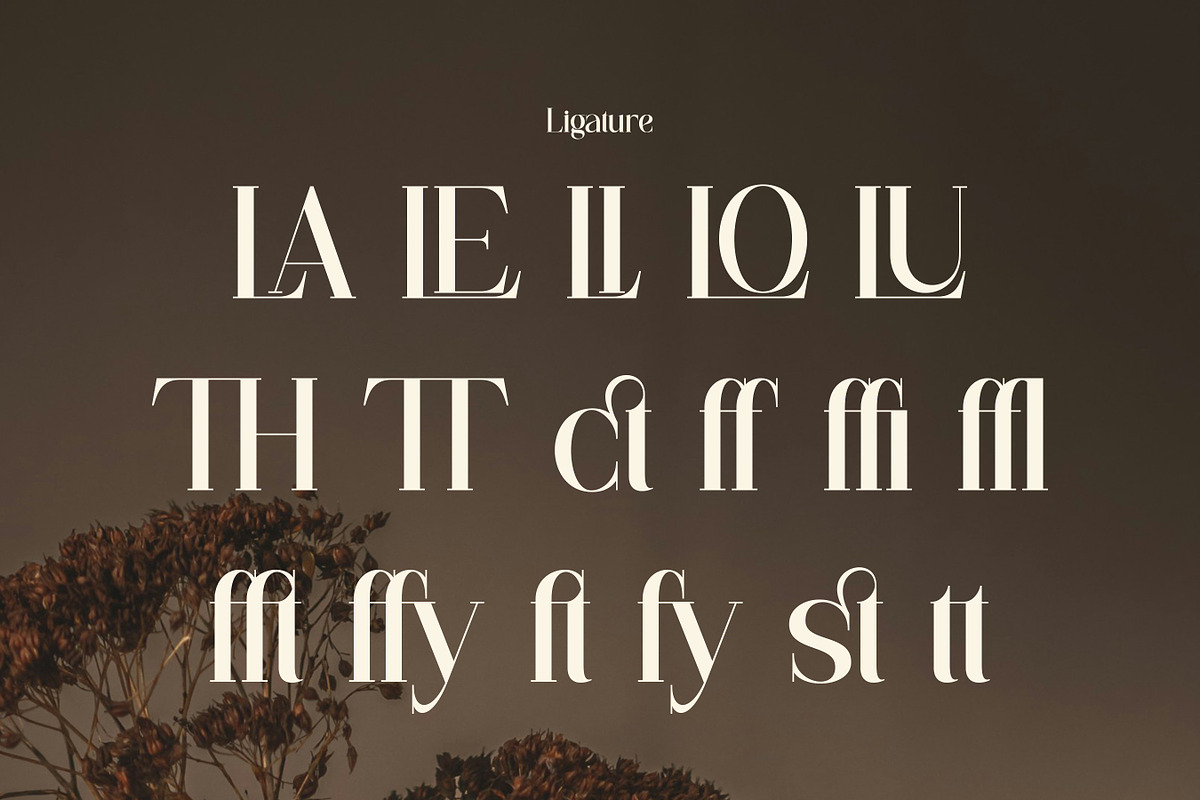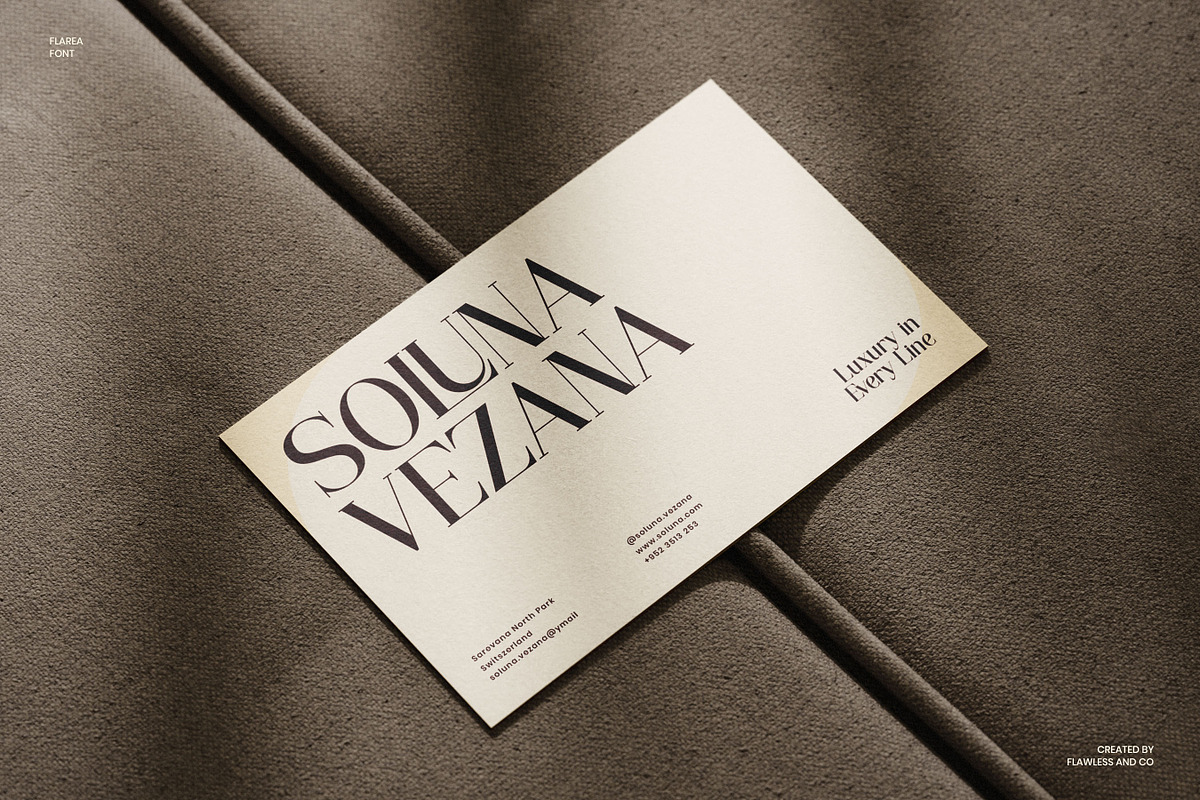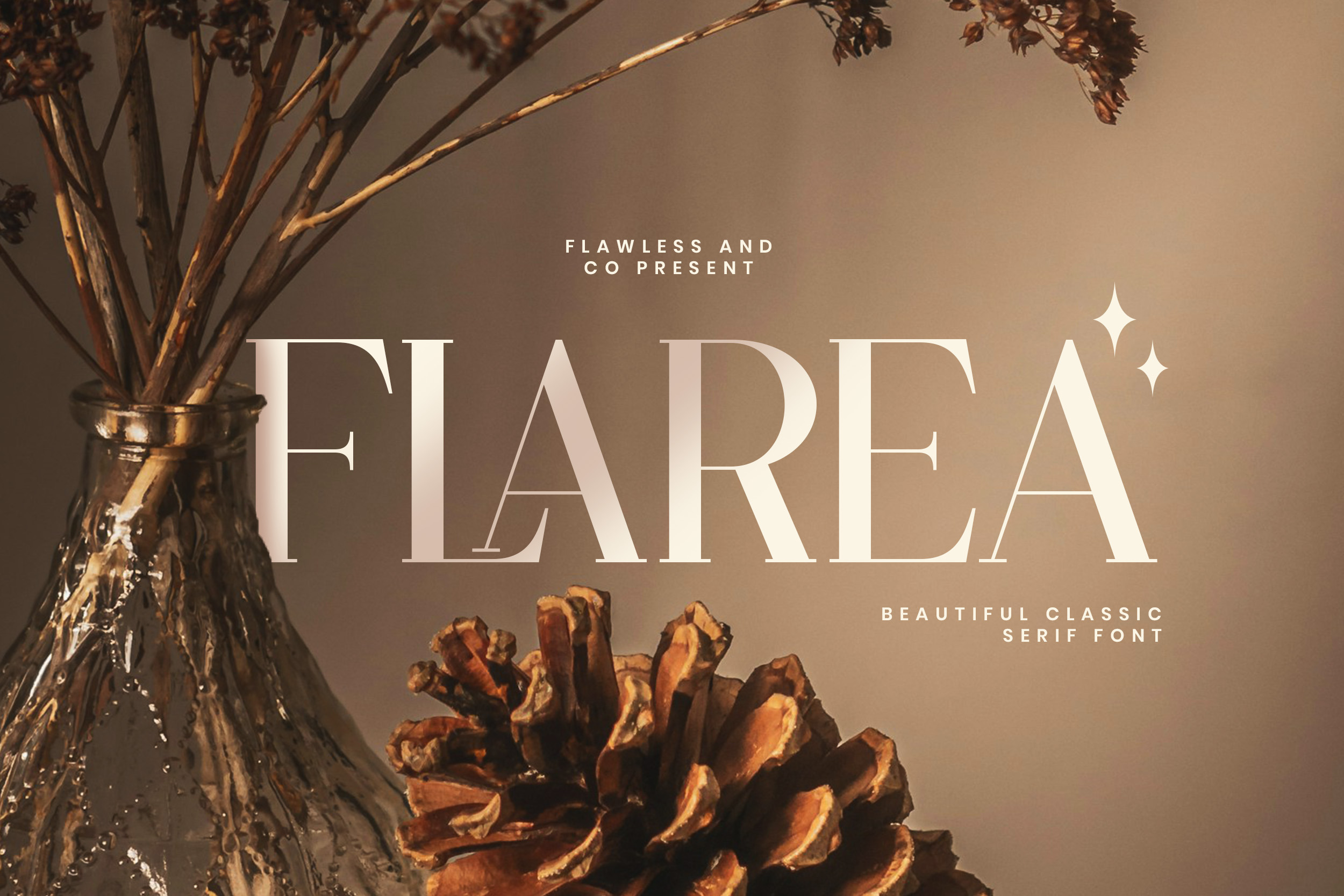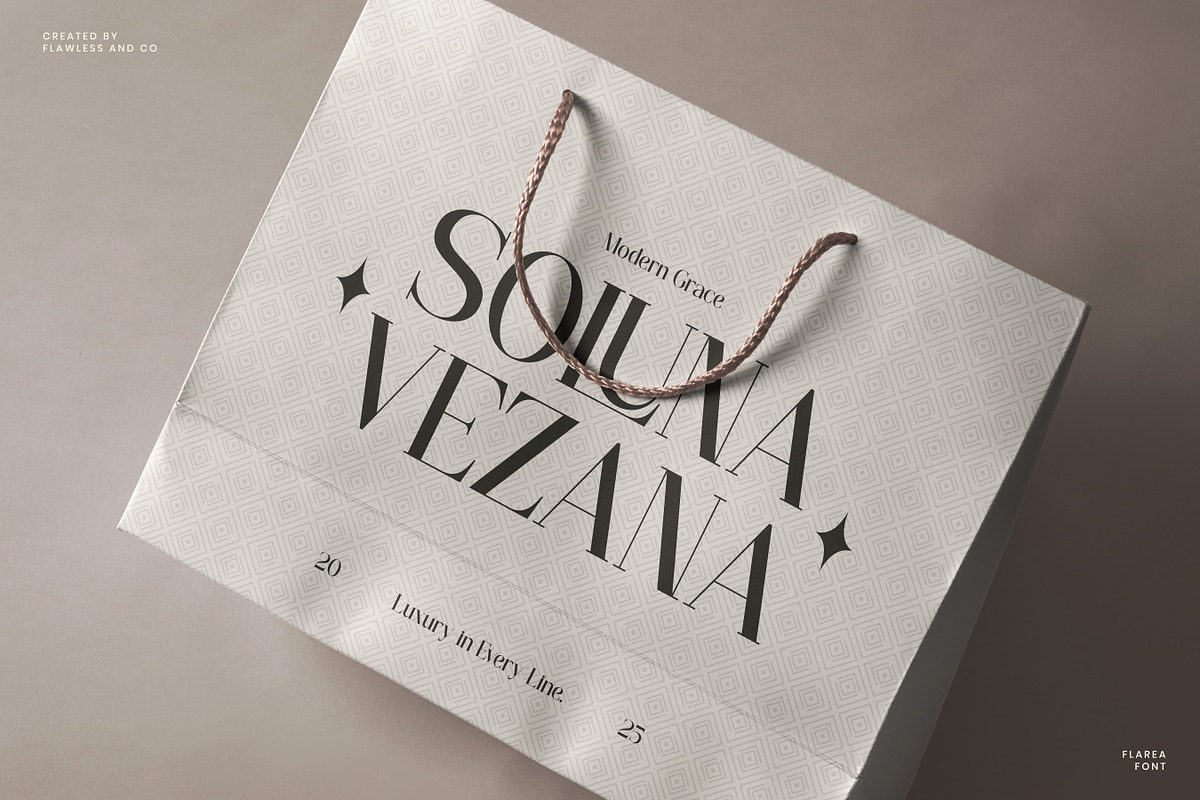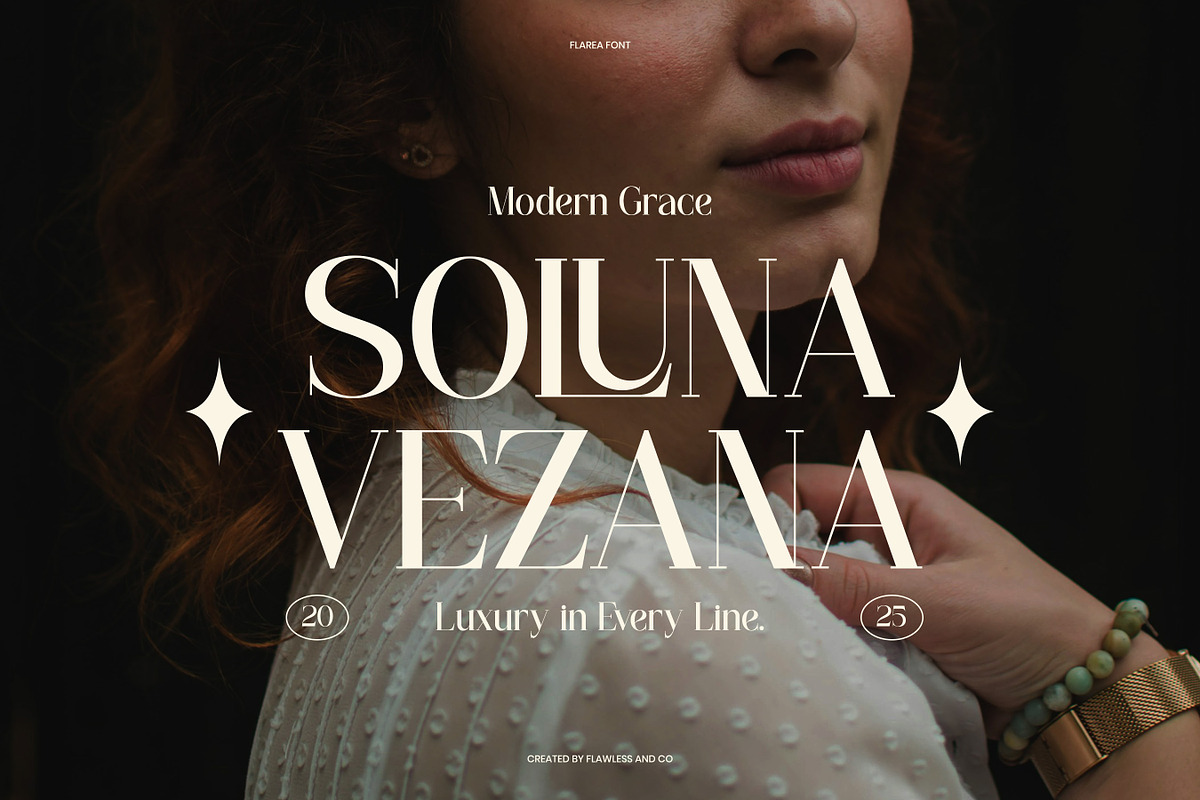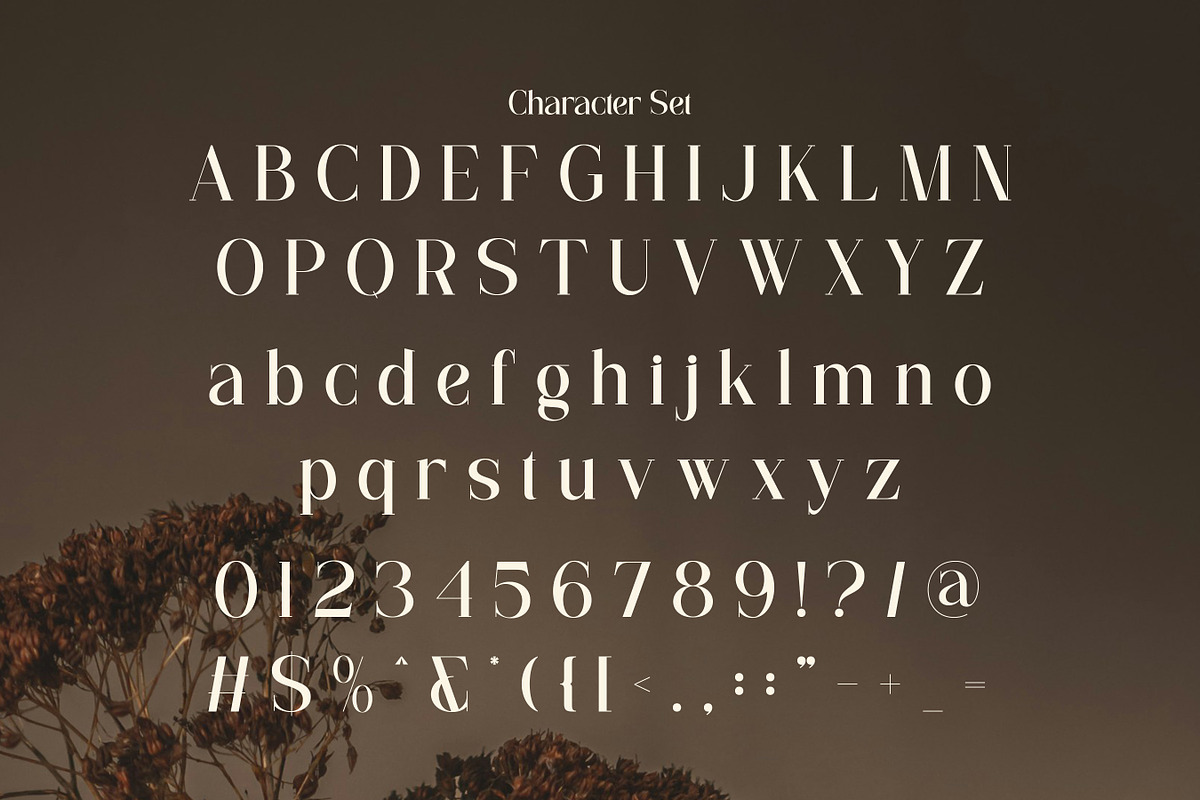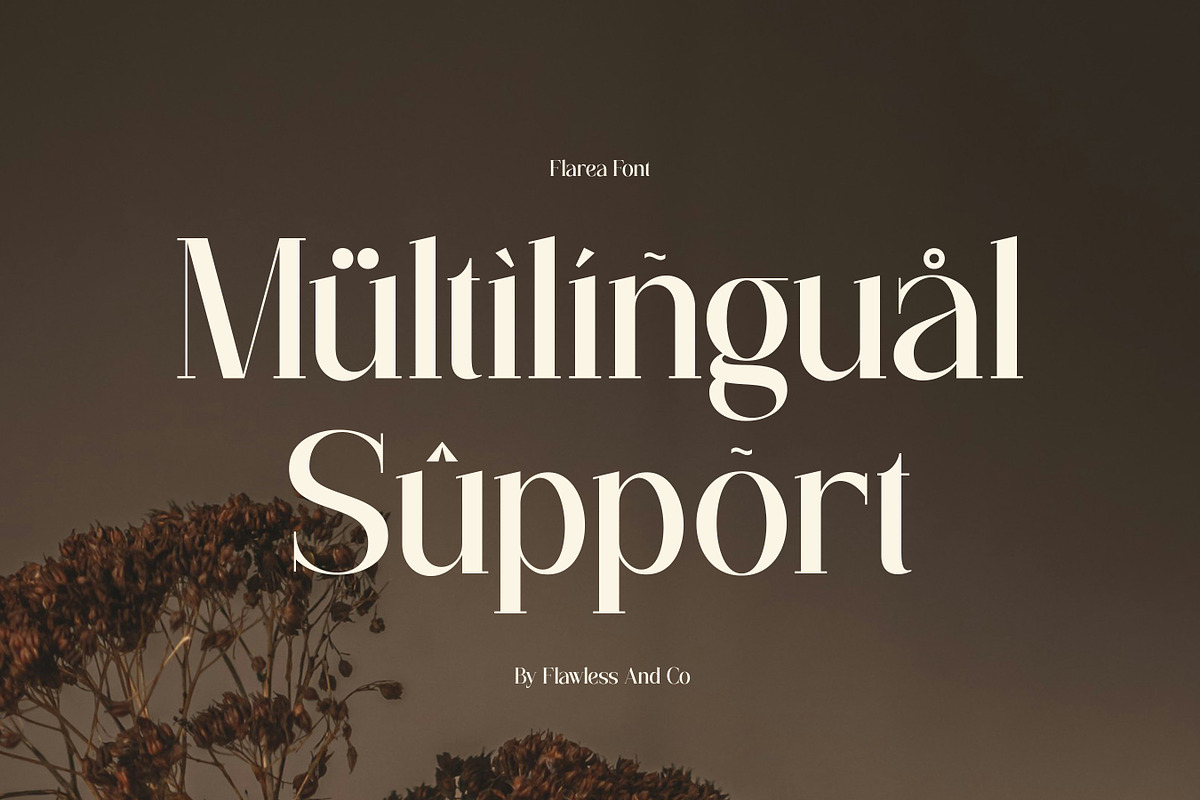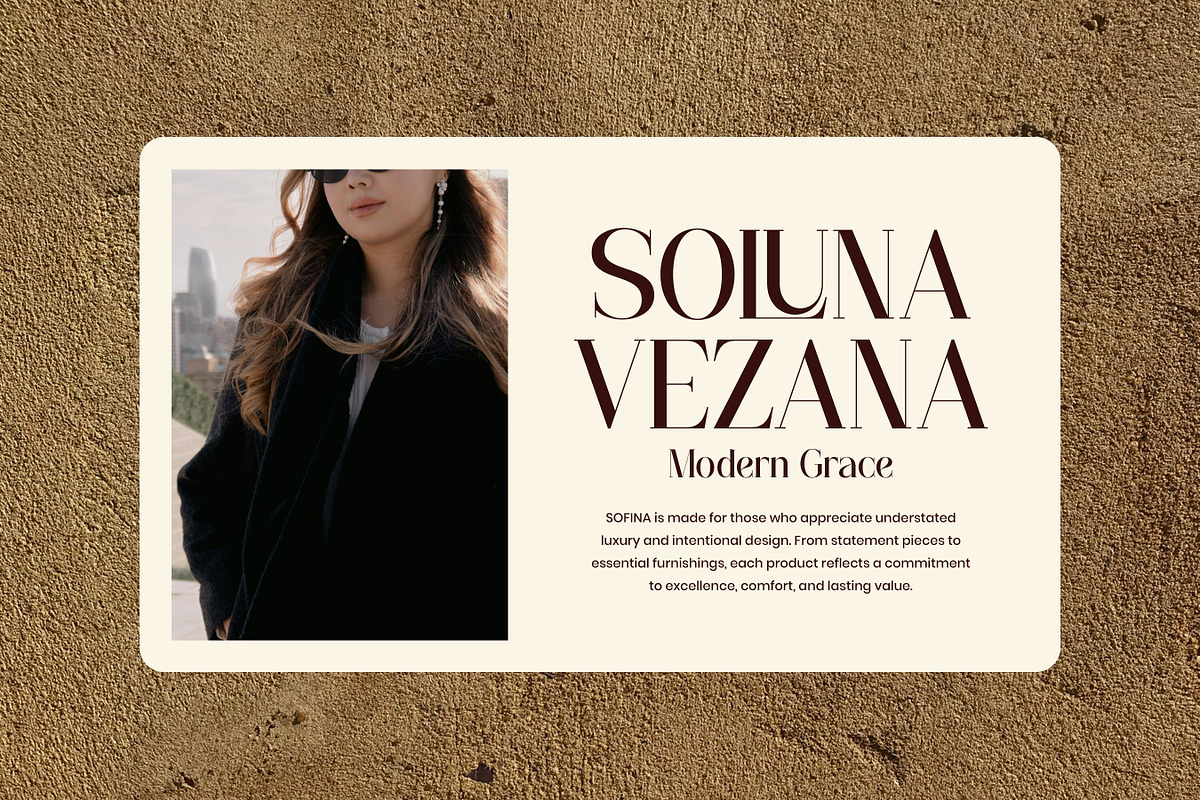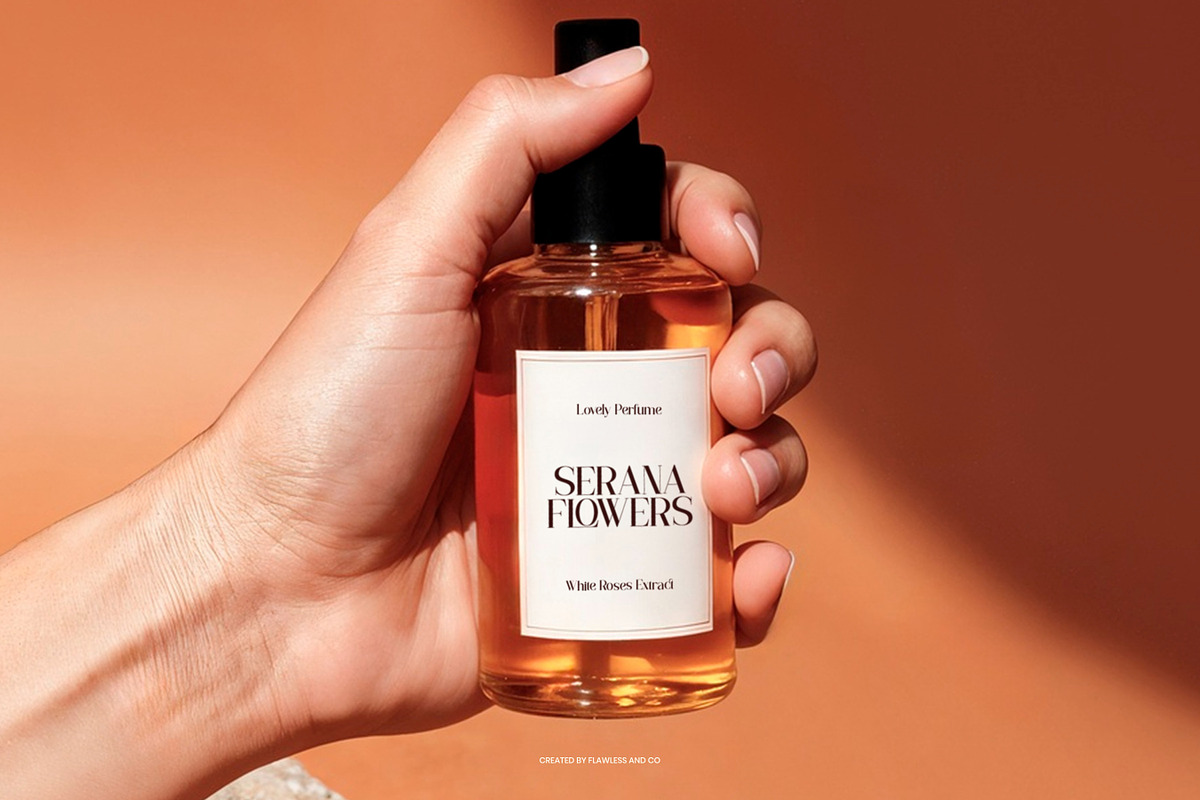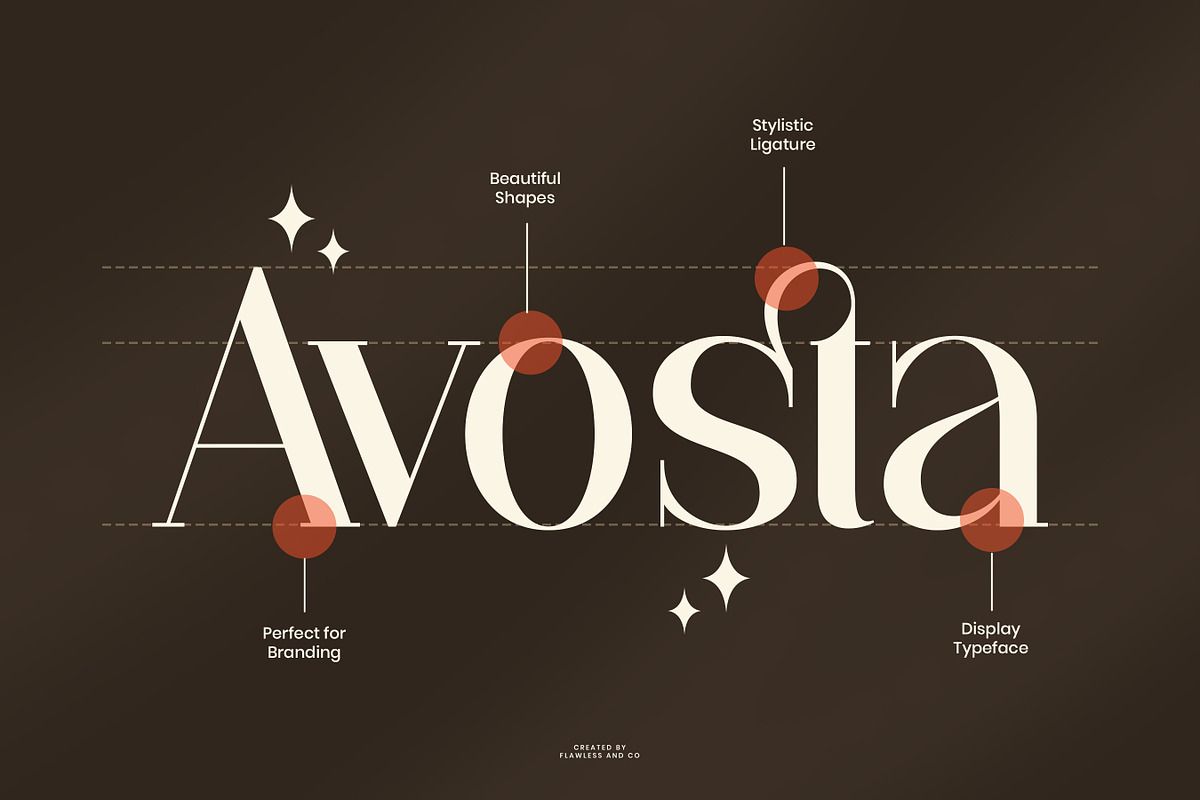
Flarea - Beautiful Serif Font
Flarea - Beautiful Classic Serif Font
Flarea is a beautiful serif font crafted with graceful proportions and timeless elegance. Designed to highlight sophistication and charm, Flarea features smooth contrasts, refined curves, and classic letterforms that bring a luxurious and warm feel to any design. Its balanced structure makes it both visually striking and easy to read, perfect for premium and artistic projects.
A Must-Have Font for Brand and Logo Creators and Designers
With its classic beauty and modern polish, Flarea is a strong choice for logos and brand identities that require elegance and authenticity. It adds character without overpowering the design, making every composition feel refined and professional.
Why Choose Flarea for Brand and Logo Projects?
Flarea blends classic serif aesthetics with a soft, modern touch. Its elegant details elevate branding projects, helping brands communicate luxury, quality, and trust while maintaining a clean and sophisticated look.
Suitable For
- Brand and logo design
- Luxury and boutique branding
- Wedding and invitation design
- Editorial and magazine layouts
- Packaging and product design
- Beauty, fashion, and lifestyle projects
- Print and digital media